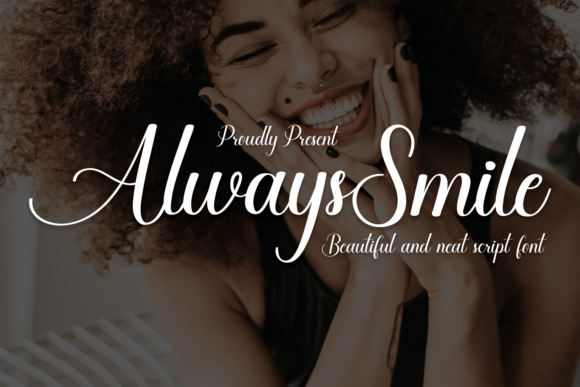
The Power of a Perfect Font: My Love Affair with Always Smile
I’ll never forget the design project that led me to discover the Always Smile font. I was working on a branding project for a boutique client, and I was struggling to find the perfect font to capture her elegant yet modern vibe. She wanted something that would make her brand stand out, but still convey a sense of sophistication. After hours of scouring font websites and trying out different options, I stumbled upon Always Smile – and it was love at first sight! 💕
An Honest Review: What I Love (and What to Watch Out For)
So, what makes Always Smile so special? Here are a few things that I absolutely adore about this font:
• ✨ Exquisite handwritten feel with a classy, calligraphic touch
• ✅ Contemporary and fresh, yet still elegant and sophisticated
• 💫 Highly legible, even at smaller font sizes
• 🎨 Perfect for a wide range of design projects, from branding to invitations to social media graphics
• 🤔 Some users have reported issues with kerning on certain letter combinations – but this can usually be adjusted in most design software.
• ⚠️ The font may not be suitable for very large or very small font sizes, as some details may get lost.
The Story Behind Always Smile
While the true story behind Always Smile remains a mystery, it’s easy to imagine that it was created by a designer who loves elegance, sophistication, and a touch of whimsy. Perhaps they were inspired by the flowing lines of calligraphy, or the imperfections of handwritten letters. Whatever the inspiration, the result is a font that’s both timeless and modern.
Is Always Smile suitable for body text? While Always Smile is highly legible, it’s still a script font – so it’s best suited for headings, titles, or short paragraphs. For longer body text, a serif or sans-serif font might be more suitable.